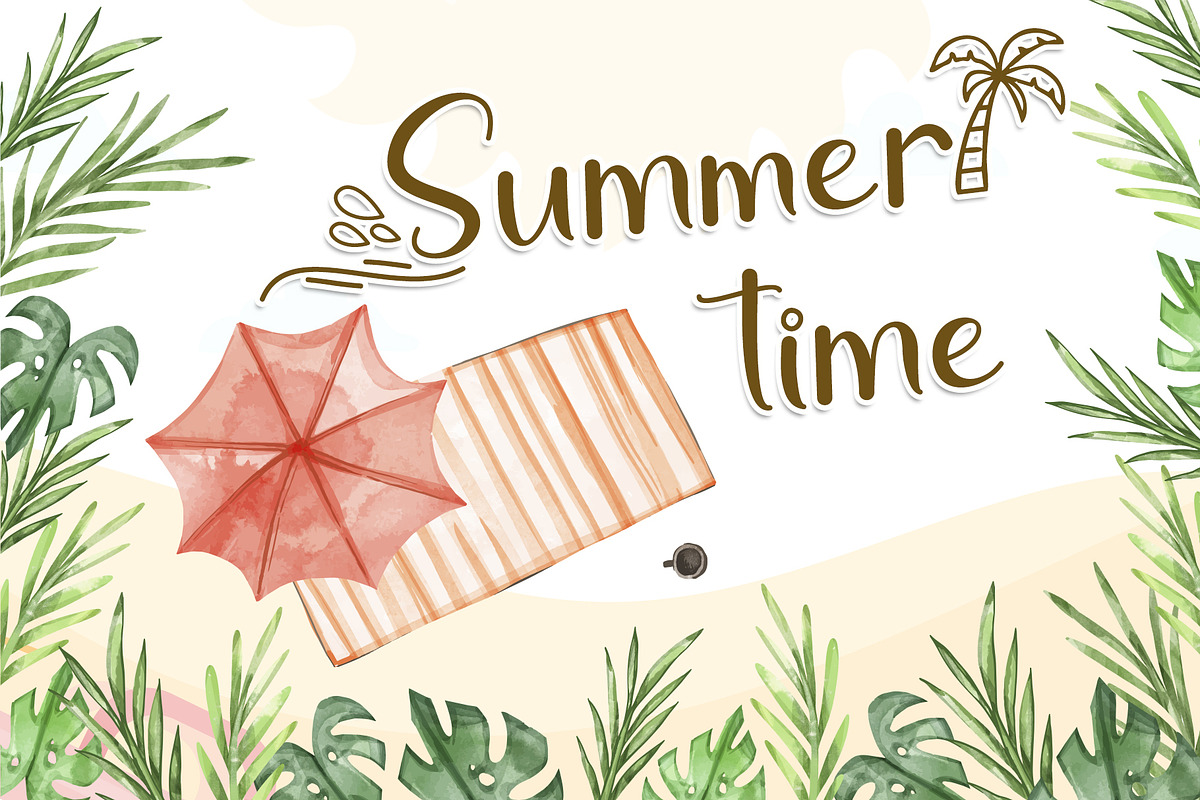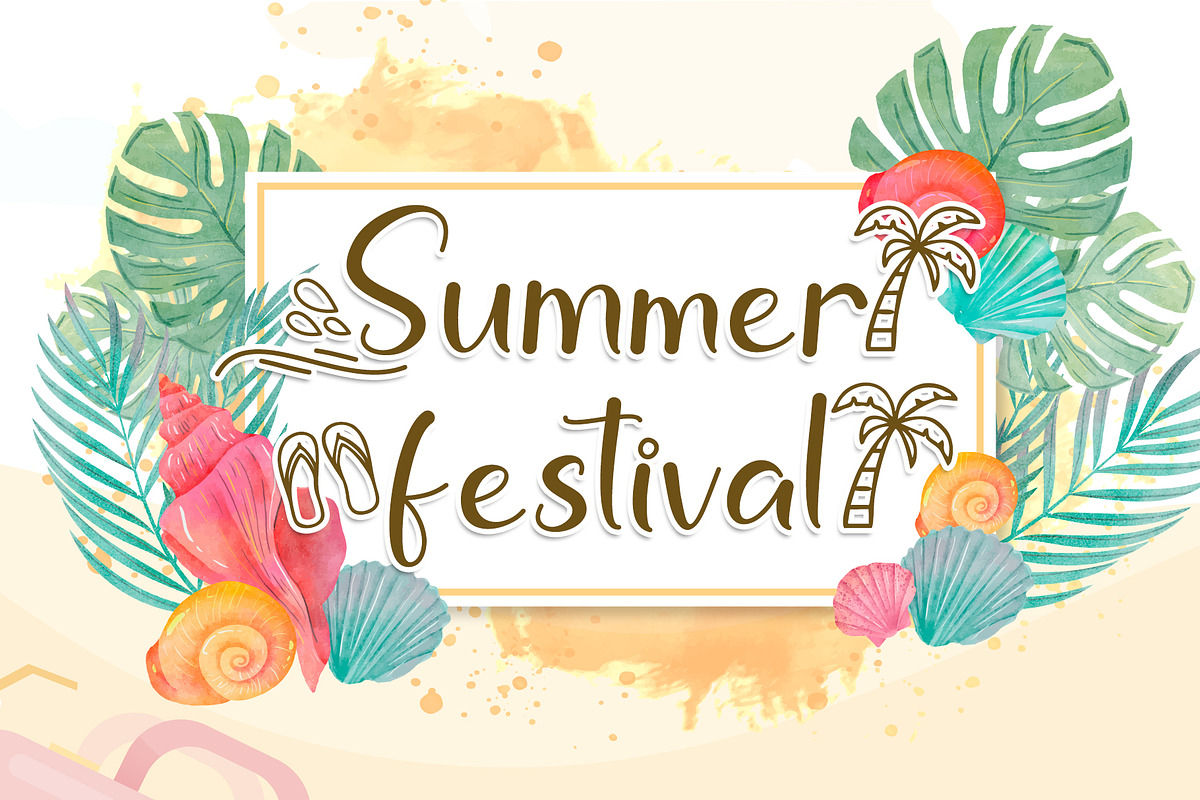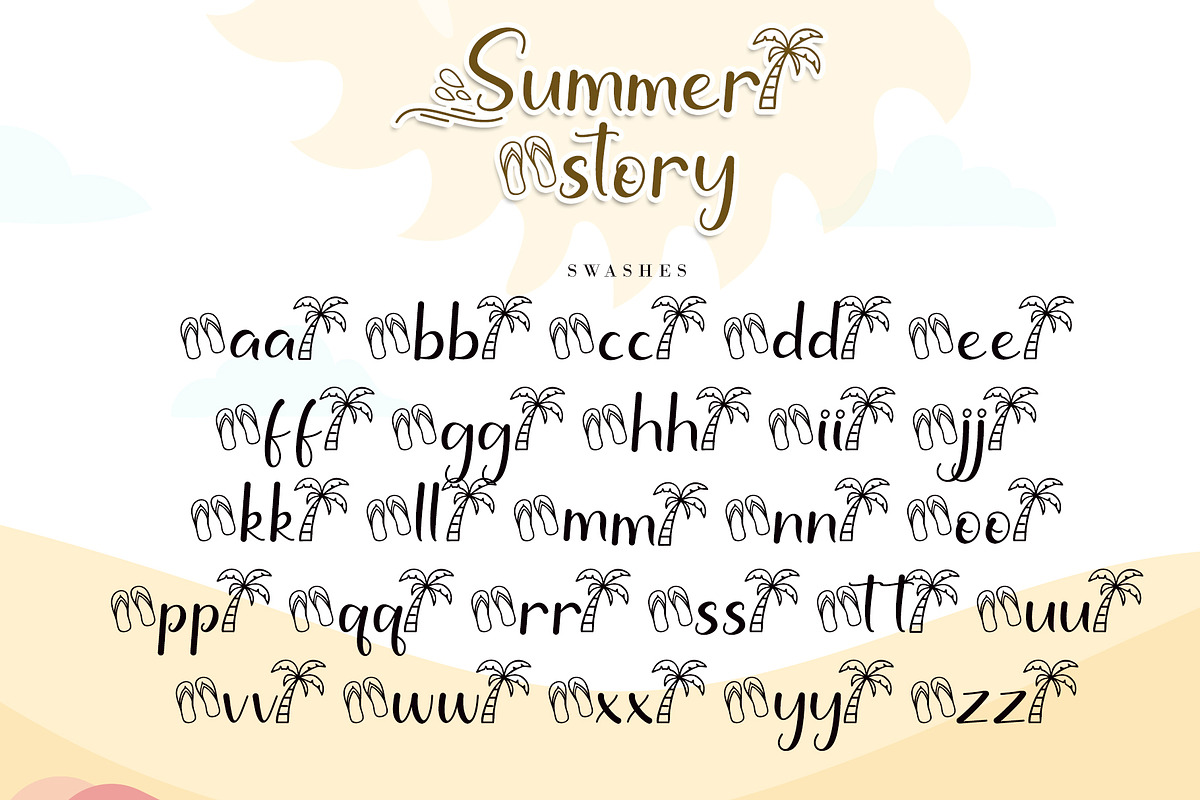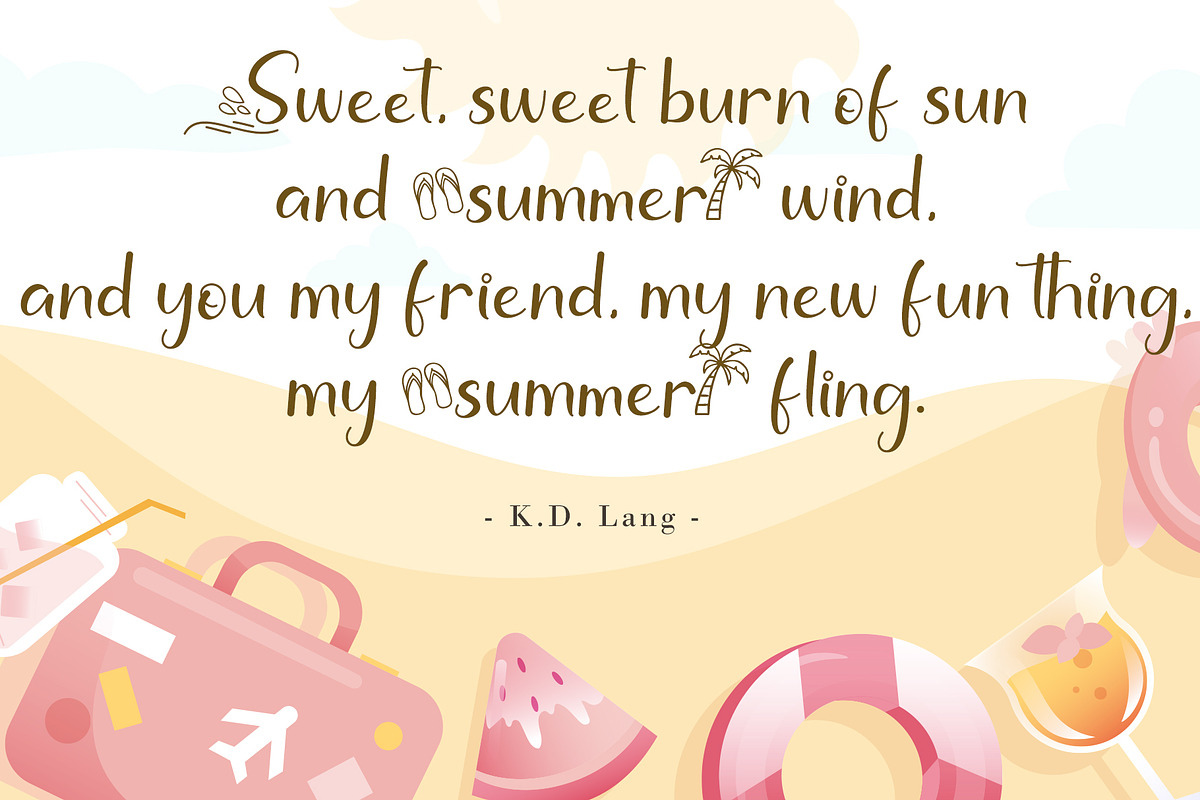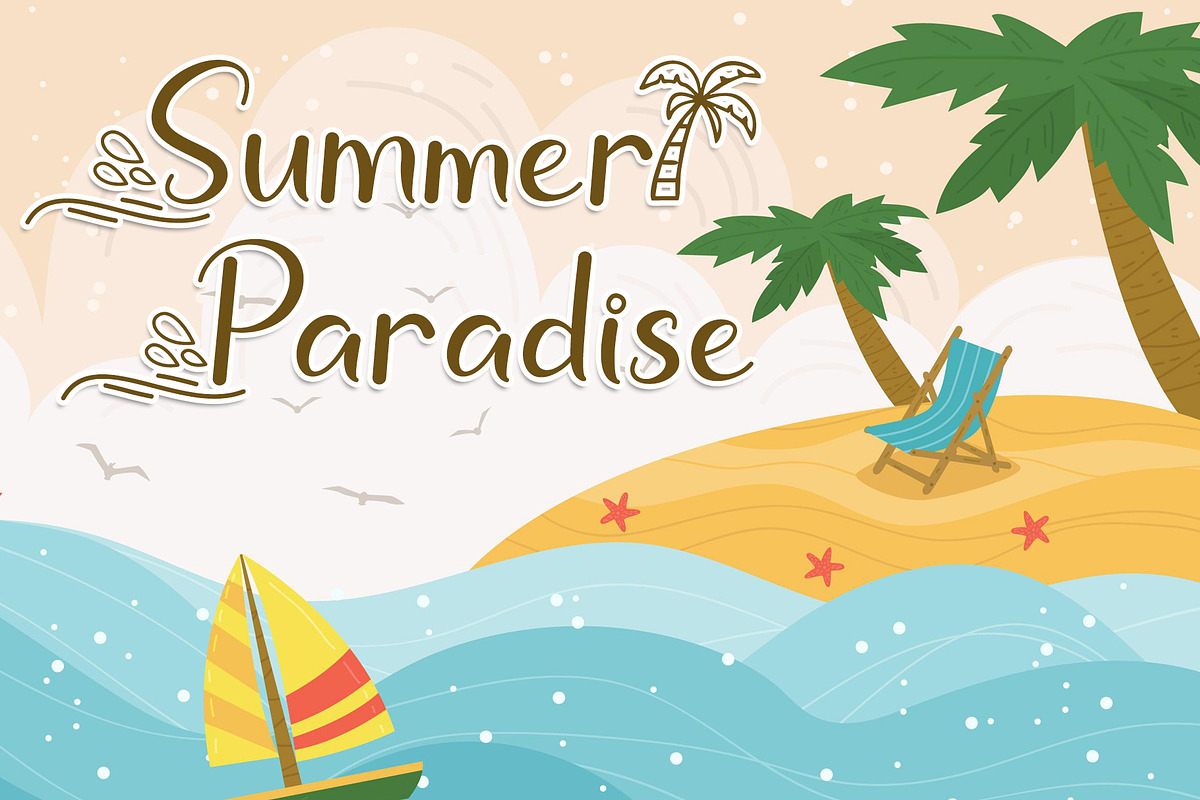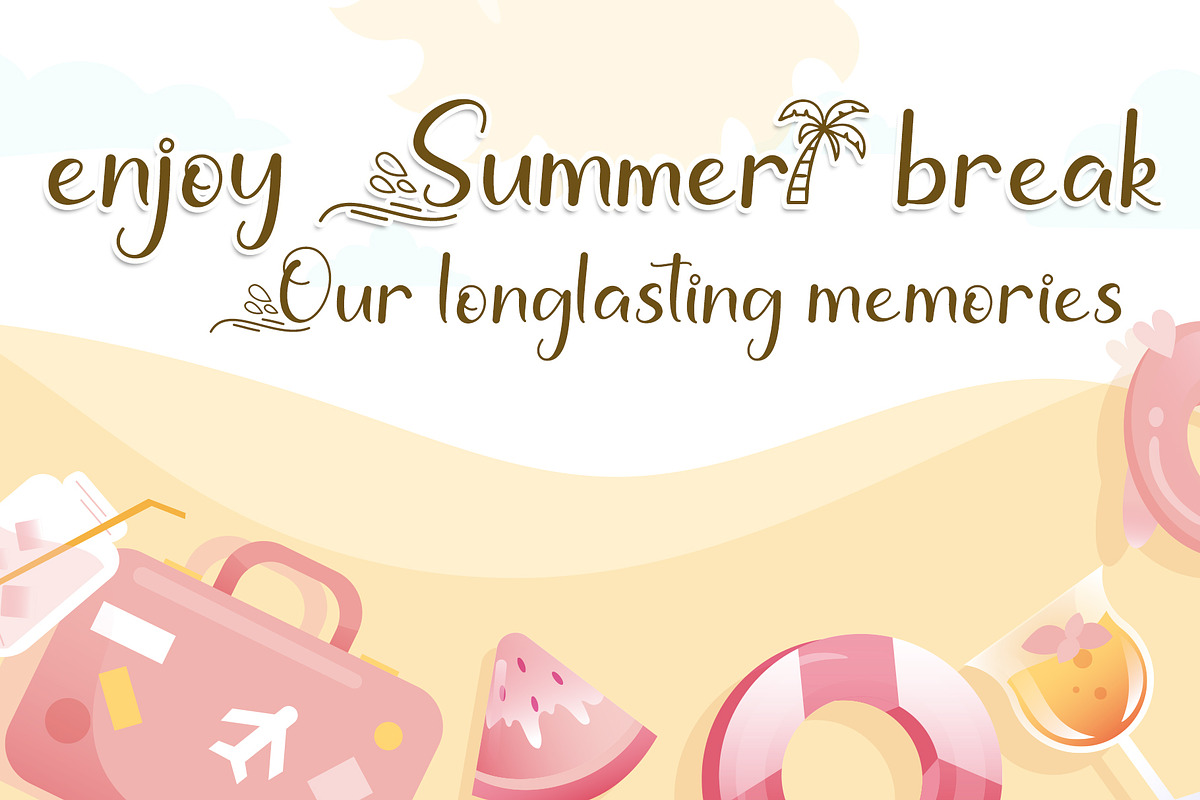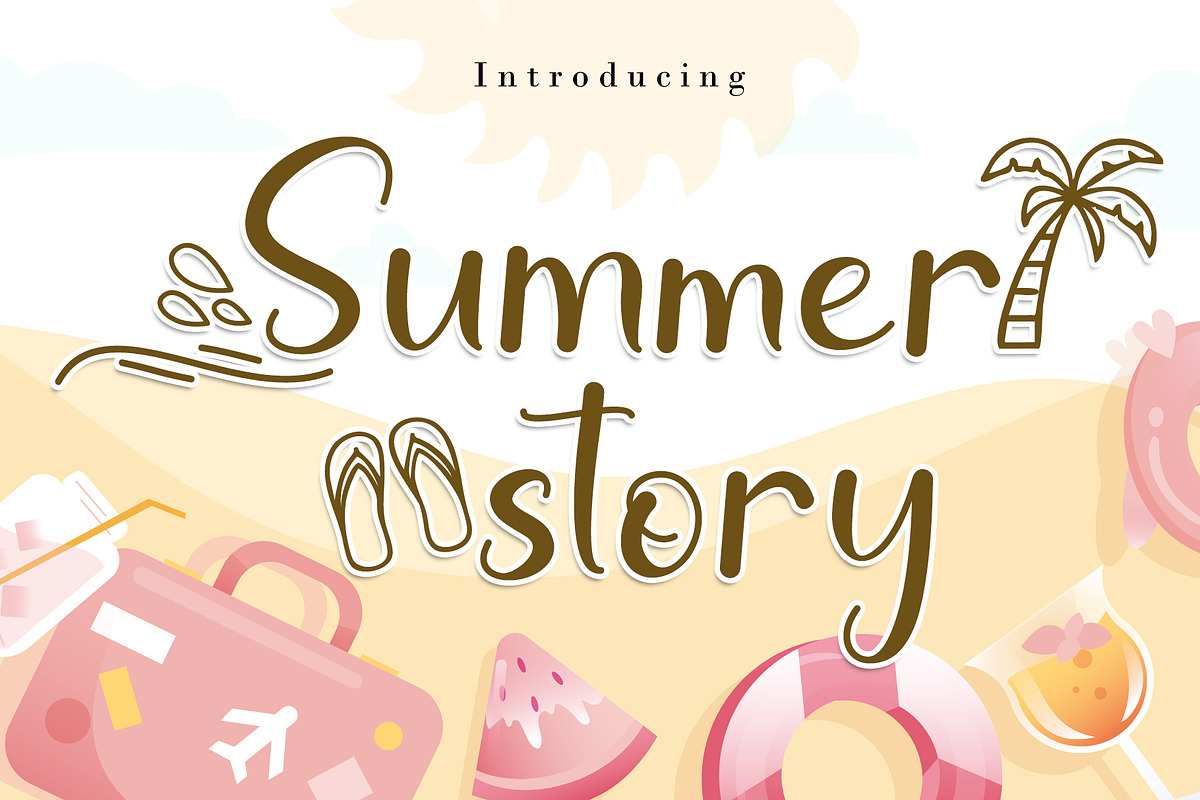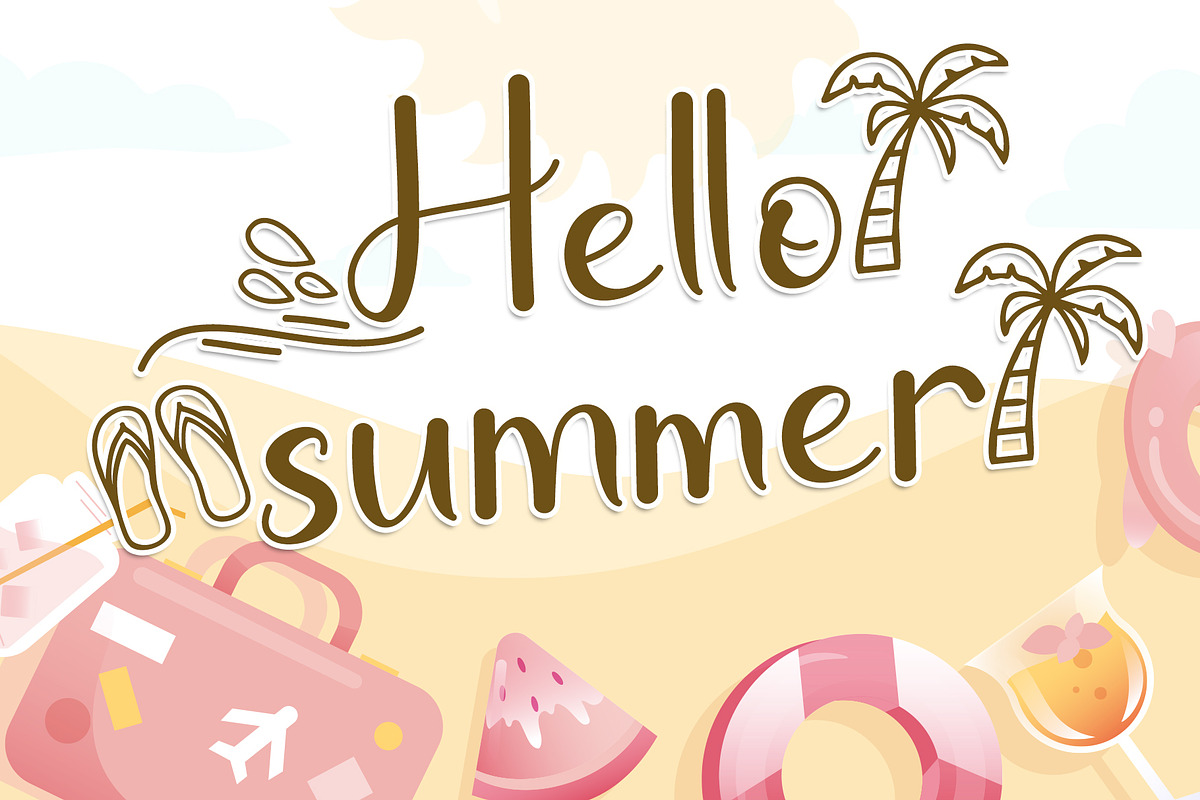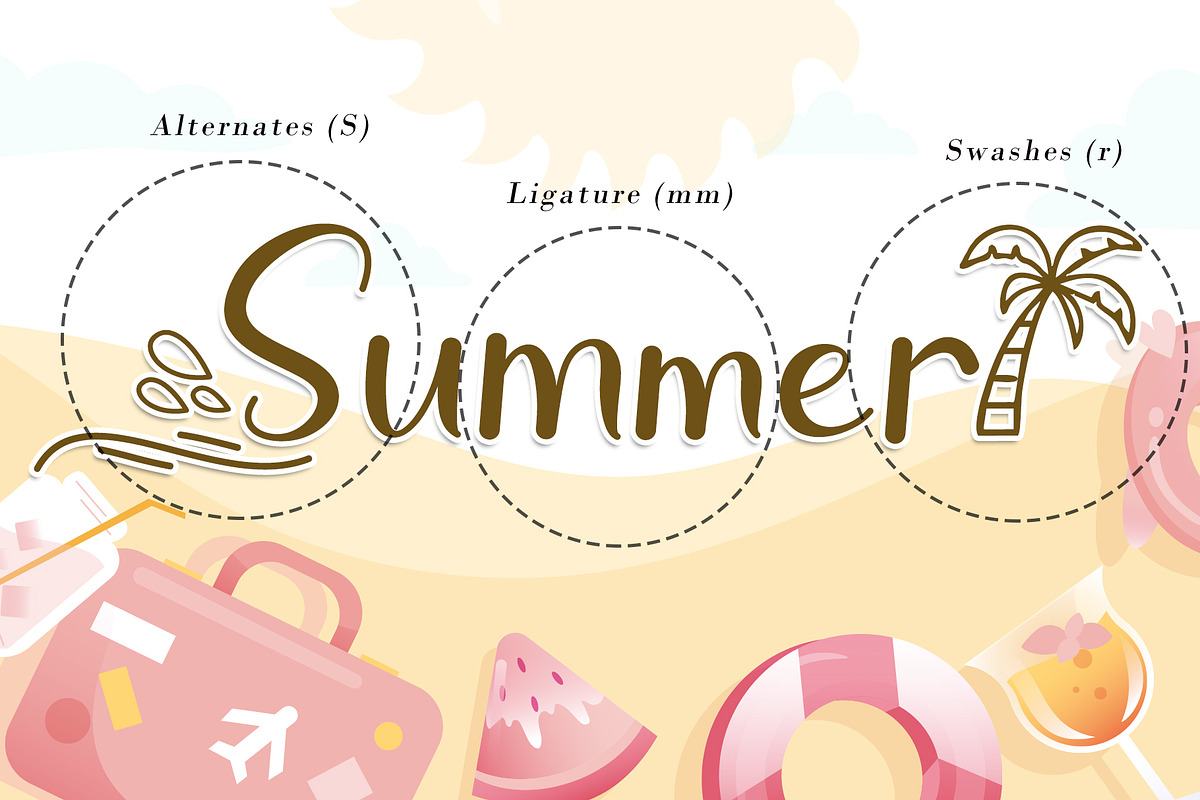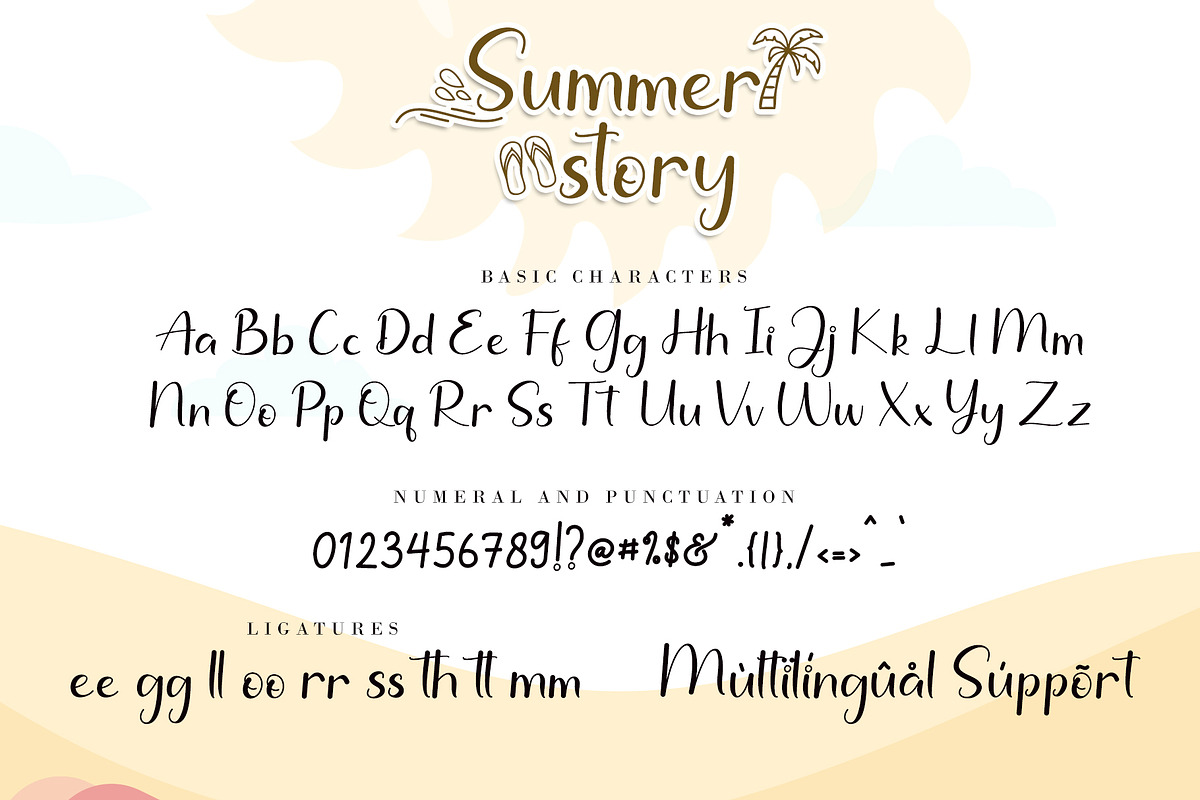
Summer Story
Summer Story is a lovely and delicate script font, featuring a relaxed and sweet flow. This font is PUA encoded which means you can access all of the glyphs and swashes with ease! Fall in love with its incredibly versatile style and use it to create spectacular designs!
Summer Story Features :
- Support multilingual; ä ö ü Ä Ö Ü ß ¿ ¡
- (a-z) titling, (a-z) swashes, ligatures
- This font is PUA encoded which means you can access all of the playful glyphs, swashes, and ligatures with ease! Please kindly message us with any questions or issues about our product.